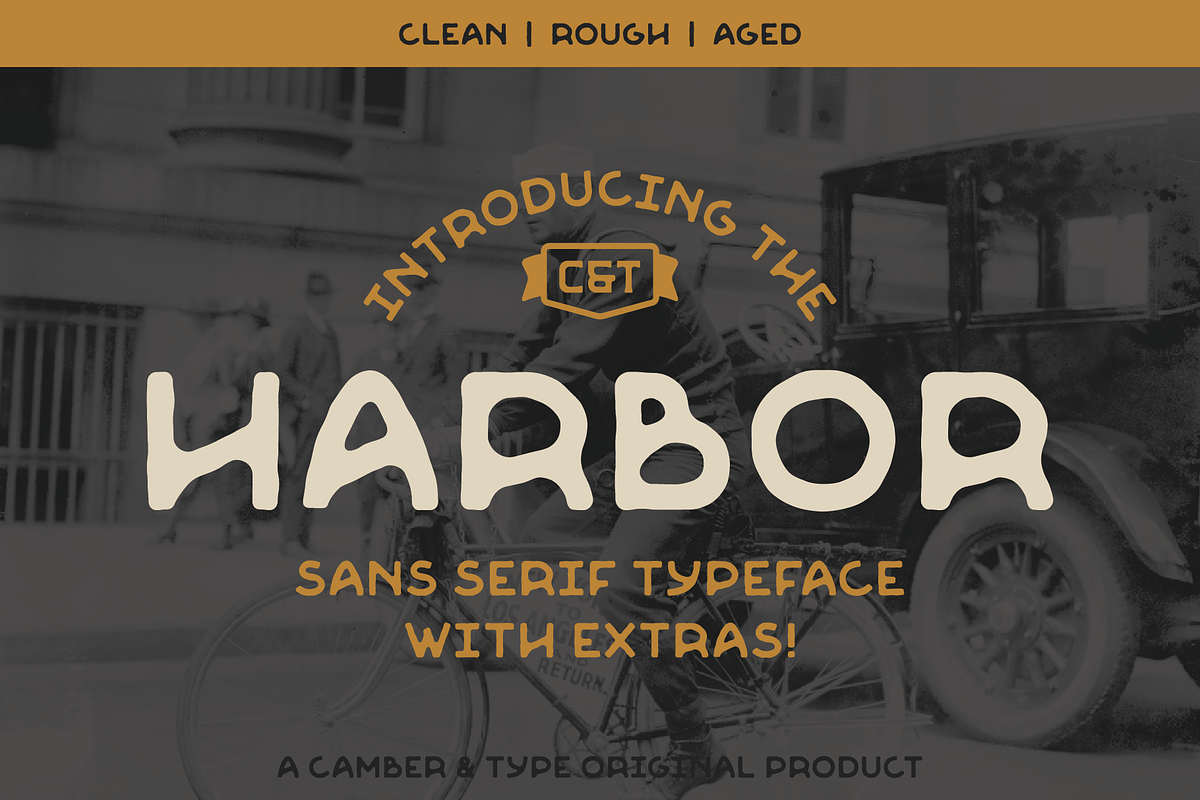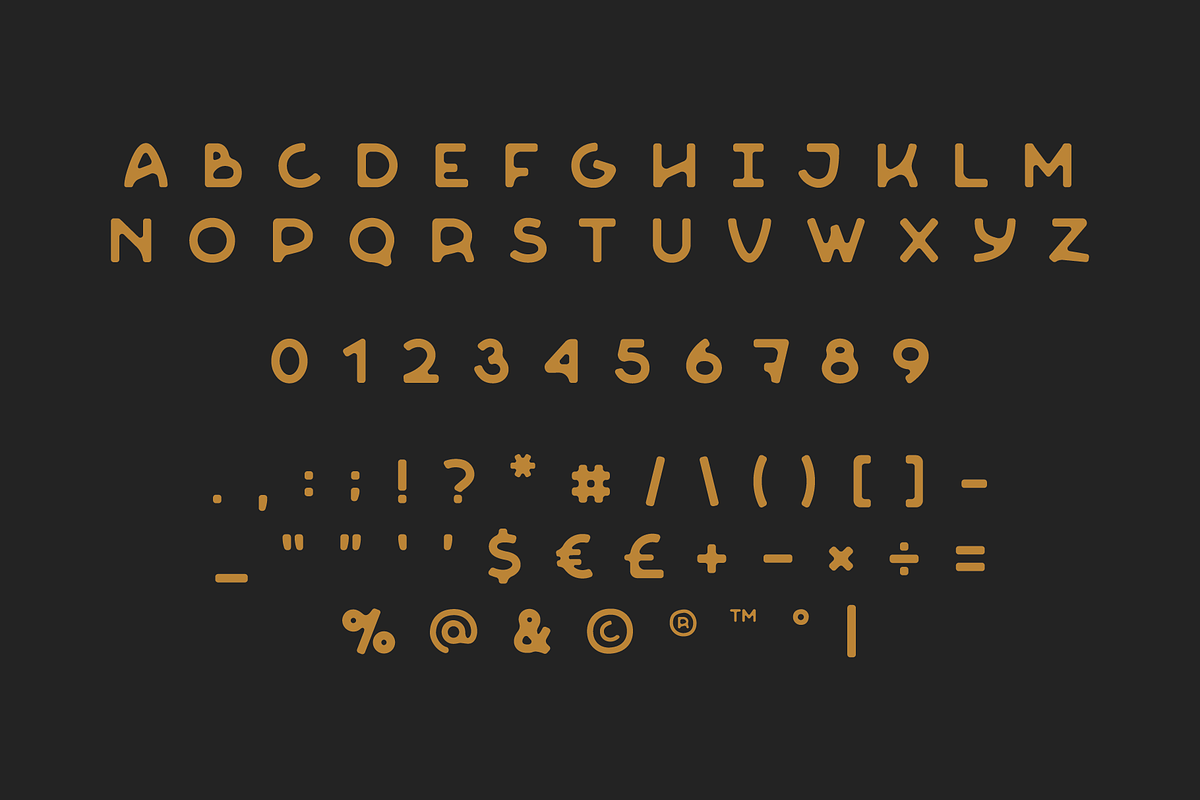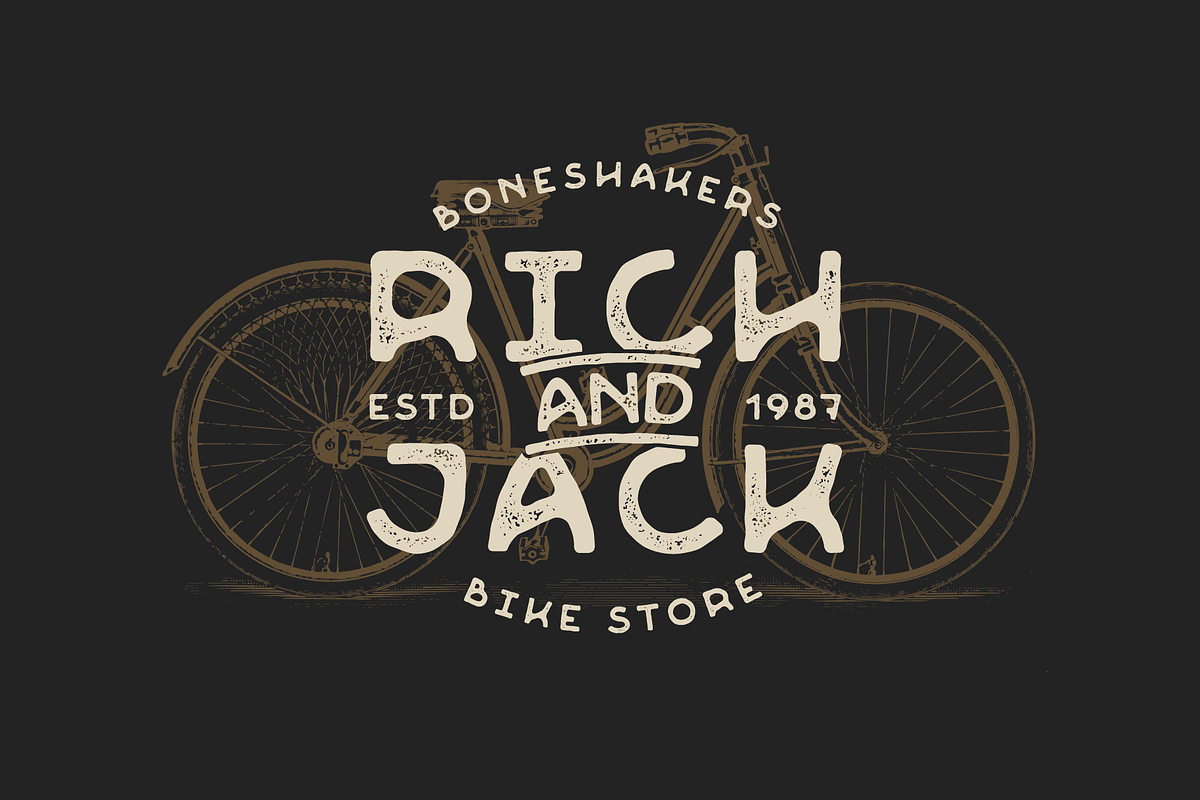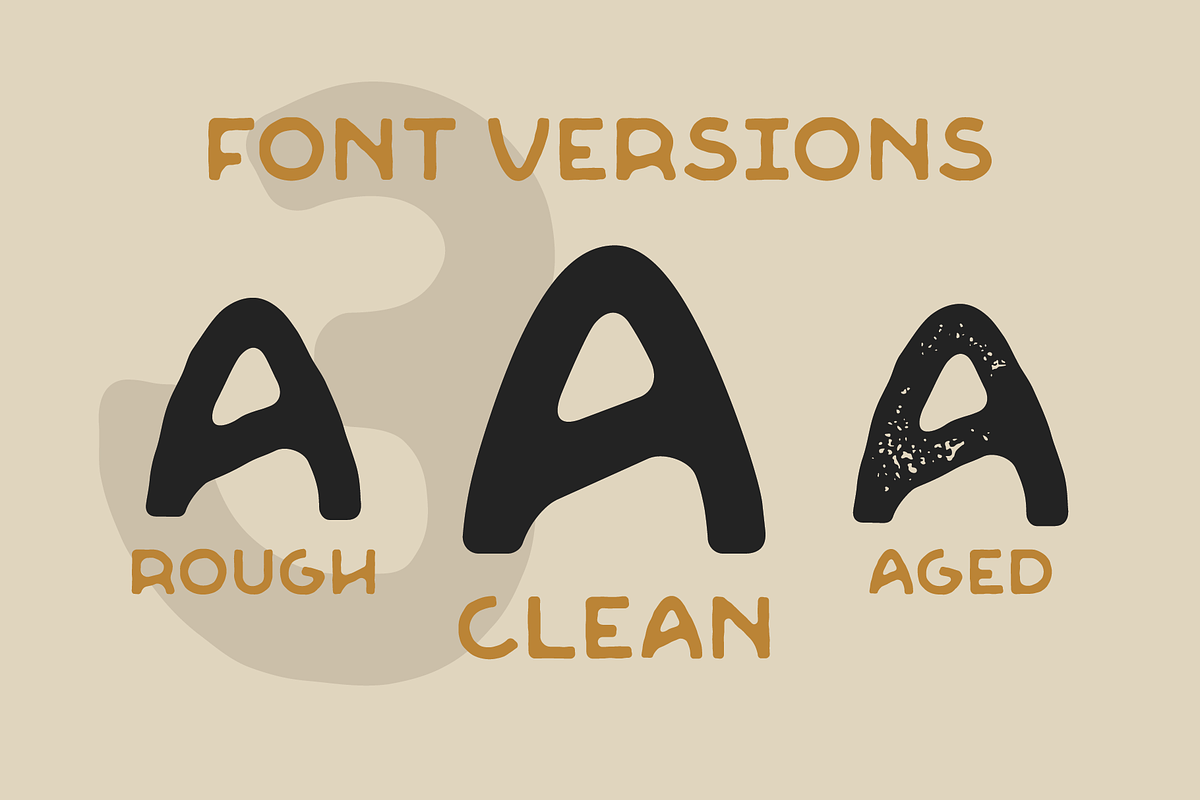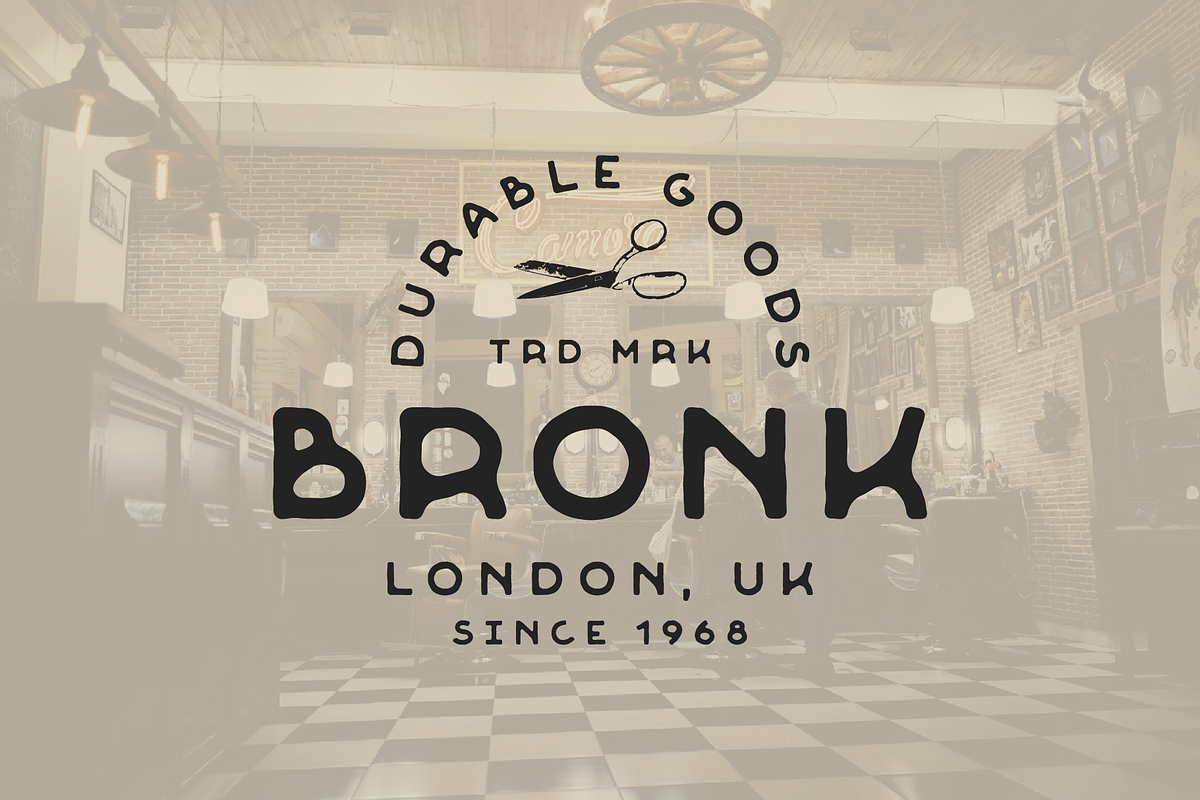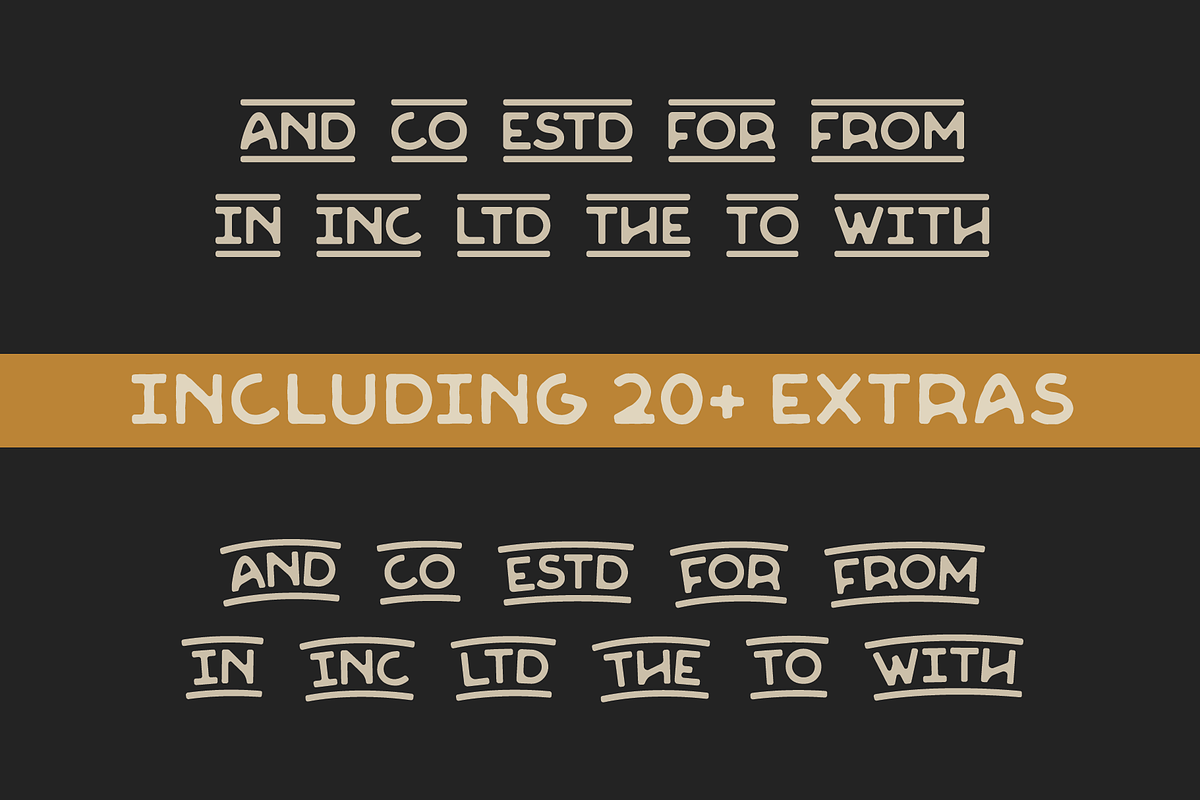
Harbor - Type Family
Introducing Harbor, a handcrafted all-caps sans serif font inspired by traditional craftsmanship of the trades.
Harbor is a great addition to any project as it featuers three styles; clean, rough and aged to convey a variety of looks through the numerous characters that Harbor has to offer! Using opentype features, the font also includes extras.